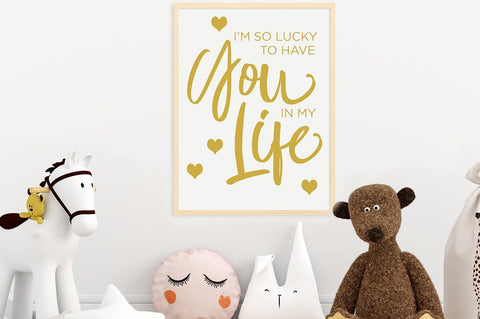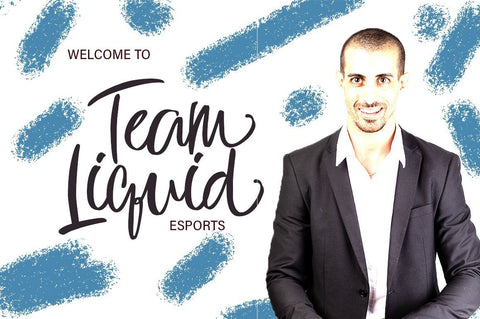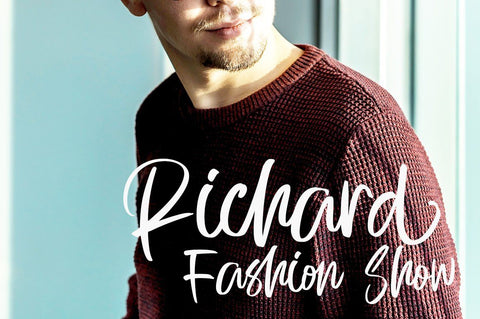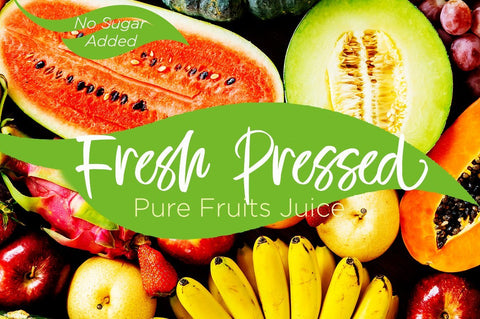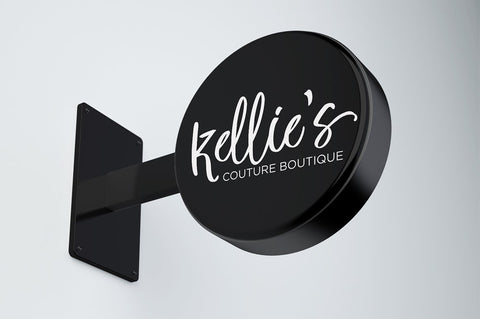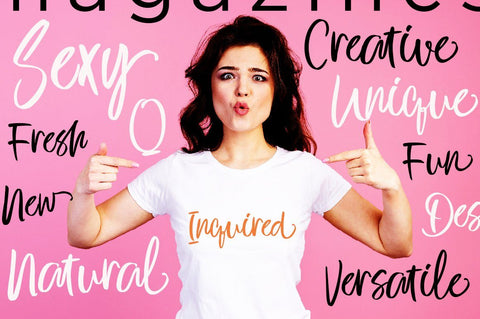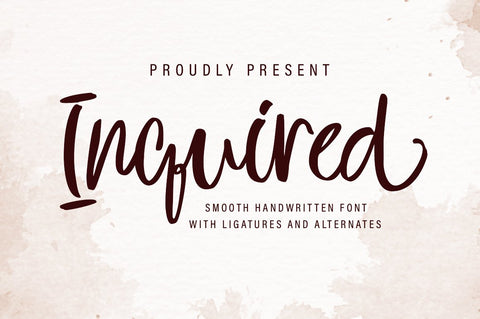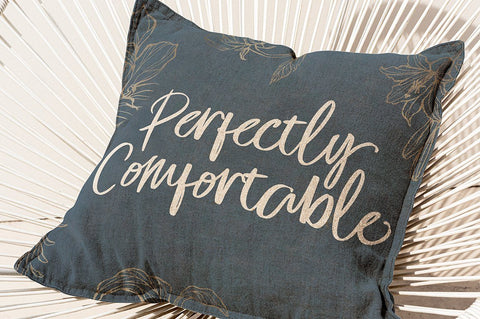
Inquired handwritten font
Inquired handwritten font is a seductive font that is made with a touch of elegance and feeling to give the best touch.
Inquired handwritten font an elegant combination of a script. It is slender, feminine and classy, while still maintaining a friendly feel.
Inquired handwritten font is versatile and will work perfectly for fashion, e-commerce brands, trend blogs, wedding boutiques or any business that wants to appear upscale and chic.
Inquired handwritten font is perfect for creating original and functional designs. It has extensive language support and tons of ligatures, stylistic sets that add visual interest to every letter.